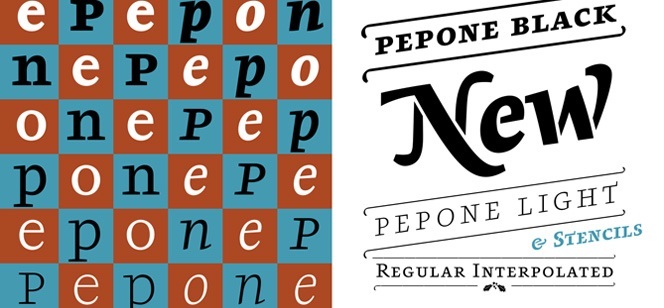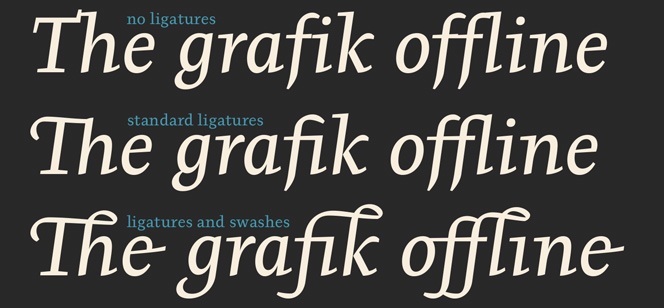
Pepone font
Pepone font is a modern serif font with very special dedication. It pays tribute to the works of the present day Czech writer Josef Kroutvor. Indeed it is specially designed to suit the purpose of setting his texts. This task required painstaking work as the font had to be worthy of the writer’s books. It had to reflect his imaginary world and to remind the readers of the places, people and events he depicts. The end result is Pepone – a font we believe goes beyond Kroutvor’s works and is suitable for universal use in books, magazines, catalogs, posters, online presentations, advertising, etc.
Pepone font bears many modern features and functions. Its different styles offer many opportunities for the people that use it – regular styles are designed to suit small text sizes and to be comfortable for reading long texts while the heavy styles are to be used very carefully. Even the Italics are narrowed in order to satisfy the contemporary need of paper saving in the offices. All in all, the different styles combine very well together and will fulfill vast range of typing demands.
Pepone font is created by the awarded Czech type designer and graphic artist František Štorm – the founder of the Prague based Storm type foundry. Its work is dedicated mostly to adapting the means of classical typography to the needs of the modern digitalized era. Other works of the foundry include: Metron font, Josef Sans font, Trivia Humanist font.
Designer: František Štorm
Publisher: Storm